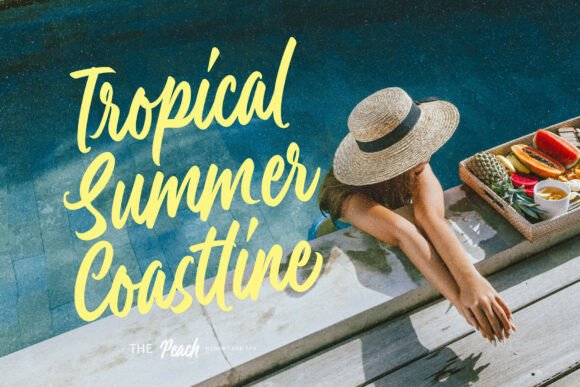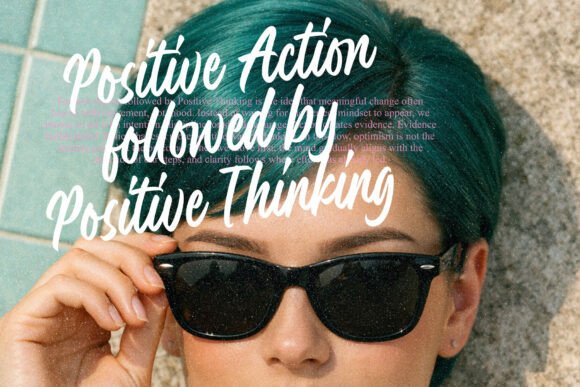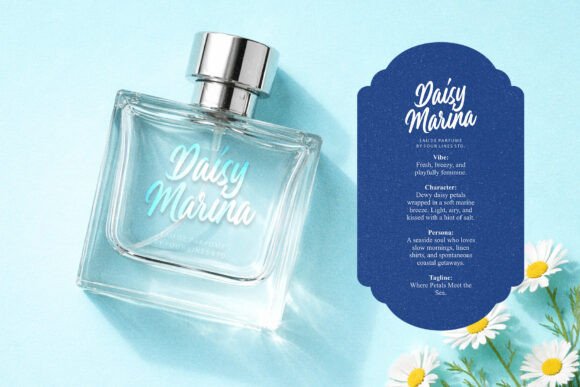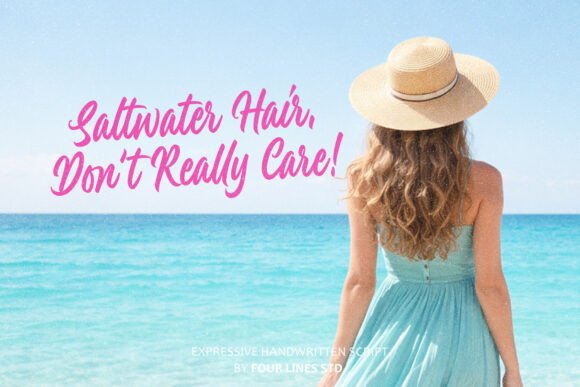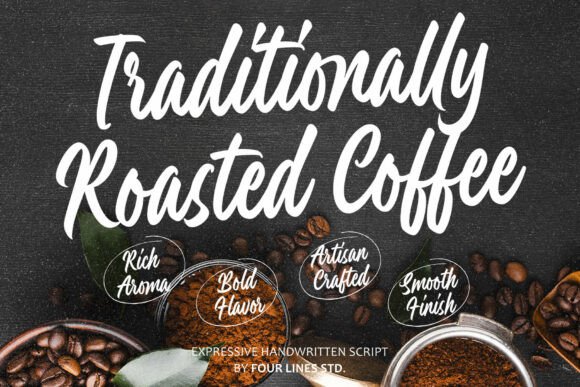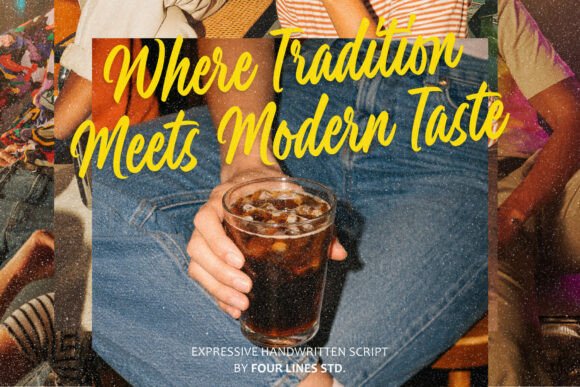
Introduction to Peach Panturas Font
As a designer, there’s nothing quite like the thrill of stumbling upon the perfect font to elevate your creative project. It’s that moment when the words start flowing, and the design begins to take shape. For me, that moment came when I discovered the Peach Panturas Font. This beautiful, handwritten font is more than just a design resource – it’s a key to unlocking a world of friendly, inviting designs that scream ‘summer vibes’.
With its naturally flowing letterforms and lively writing rhythm, the Peach Panturas Font is a game-changer for designers looking to add a touch of authenticity to their work. Whether you’re working on branding headlines, product packaging, or social media content, this font is sure to bring a smile to your face and a spring to your step.
Key Features of Peach Panturas Font
- Unique, elegant design ideal for creative projects and design resources, offering a touch of sophistication.
- Designed with a modern aesthetic, featuring a clean and minimalist approach that is perfect for a wide range of applications.
Honest Review: Peach Panturas Font
I recently stumbled upon the Peach Panturas Font, a free design resource that I thought was worth sharing with the community. As a designer, I’m always on the lookout for high-quality fonts that can elevate my creative projects.
Here are the pros and cons of this font:
- ✨ High quality: The Peach Panturas Font is well-crafted and has a beautiful, elegant feel to it.
- ✨ Versatile: It can be used for a variety of design projects, from logos to typography-heavy designs.
- ⚠️ Limited font sizes: The font doesn’t support a wide range of font sizes, which can be a problem for designers who need to create designs that span multiple pages.
- ⚠️ Not ideal for bold typography: While the font is beautiful, it’s not ideal for bold, attention-grabbing typography.
Overall, I think the Peach Panturas Font is a great addition to any designer’s toolkit. While it has its limitations, its high quality and versatility make it a valuable resource for any creative project.
Peach Panturas Font
The Peach Panturas Font is a high-quality, free design resource ideal for creative projects. Its transparent background makes it easy to use in various design applications.
For the best results, use the Peach Panturas Font in designs that require a playful and modern look. Some common use cases include:
- Infographics and data visualizations